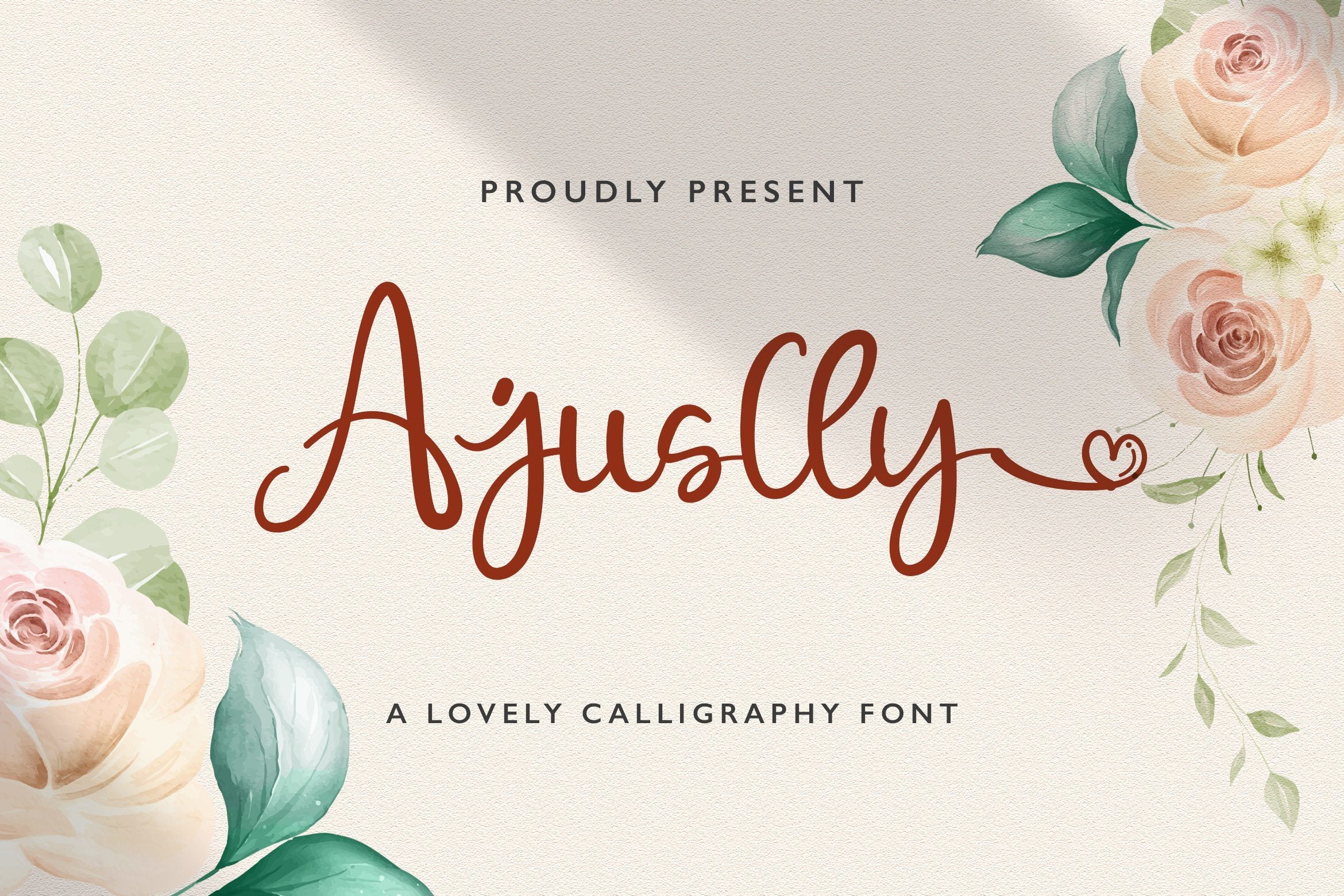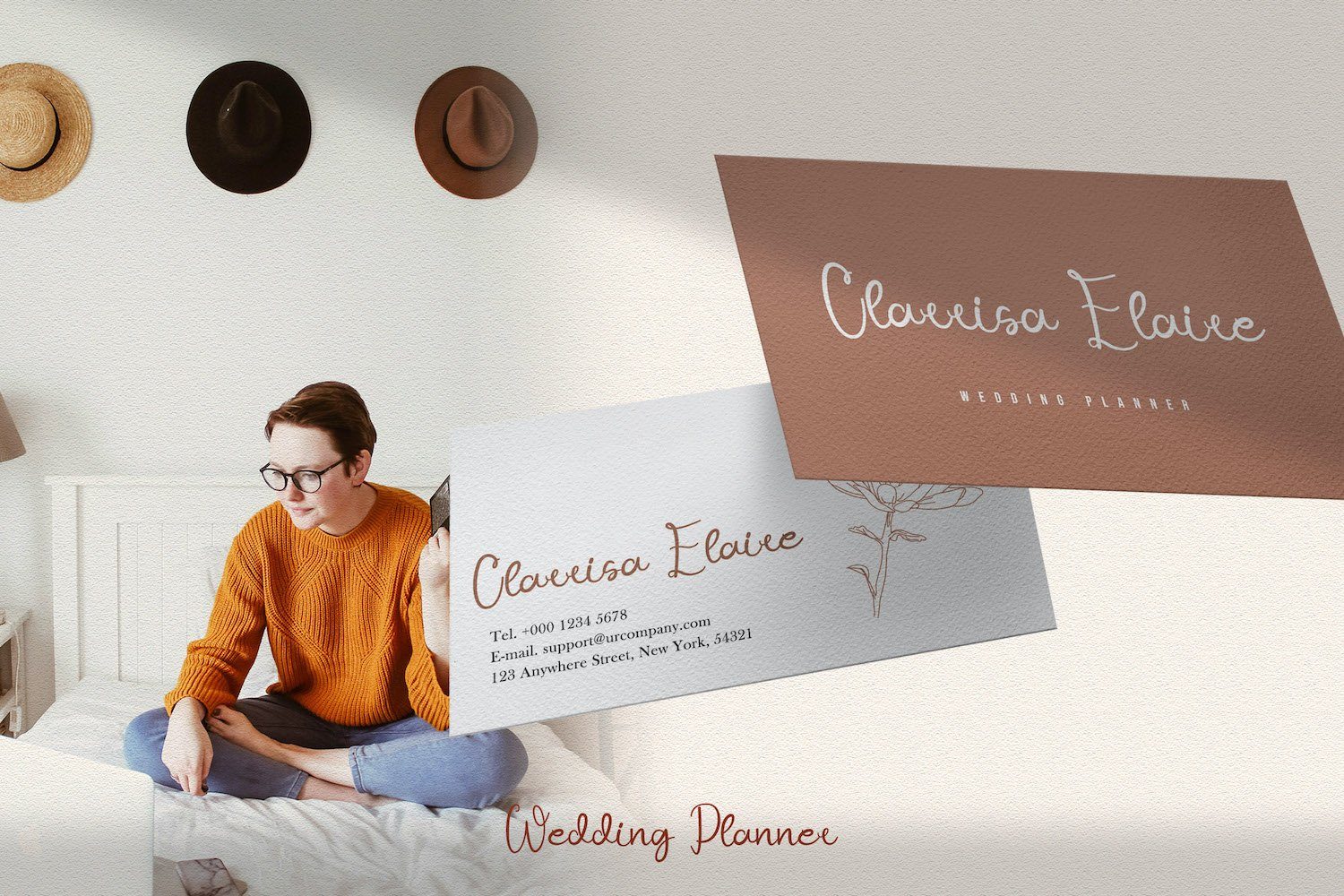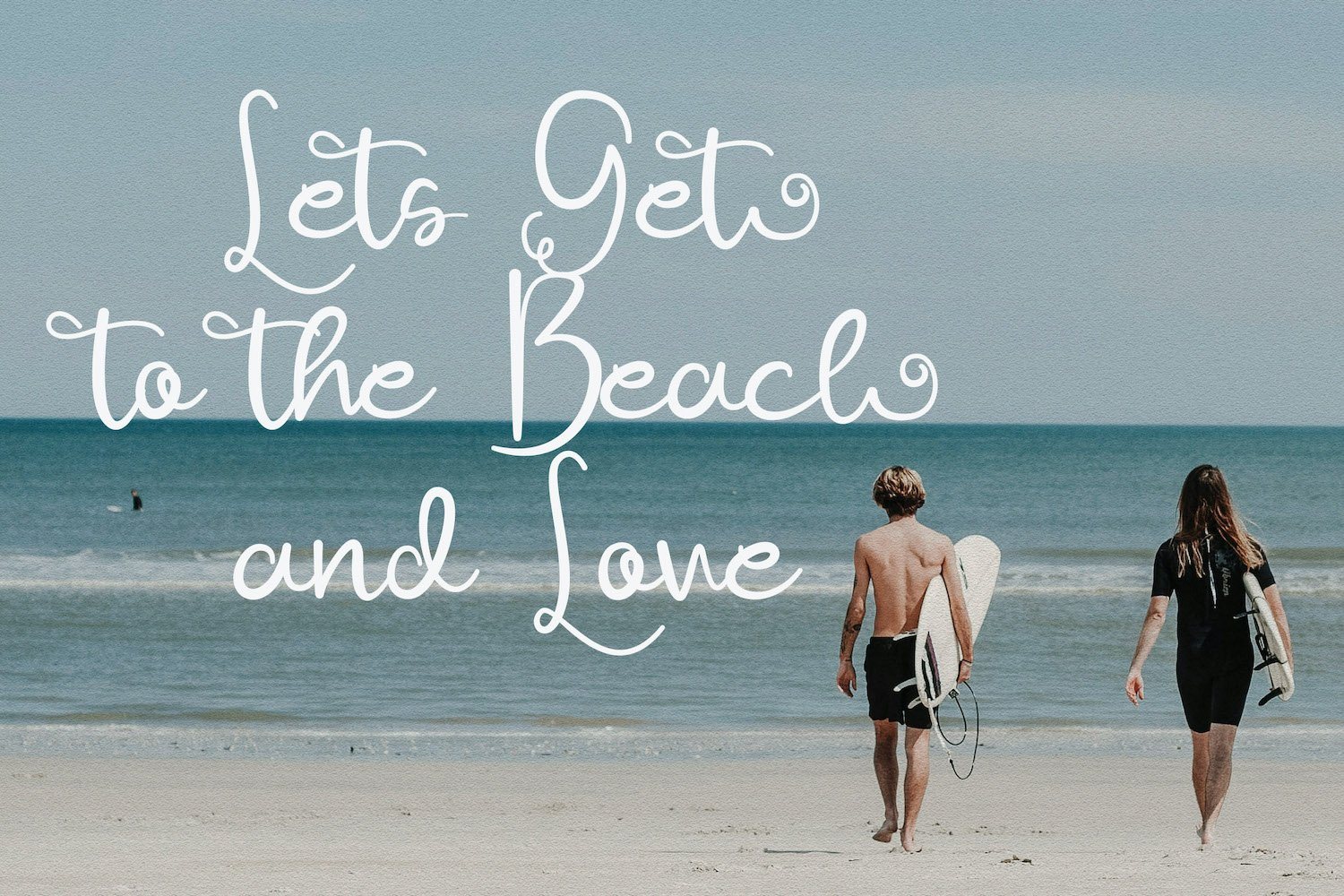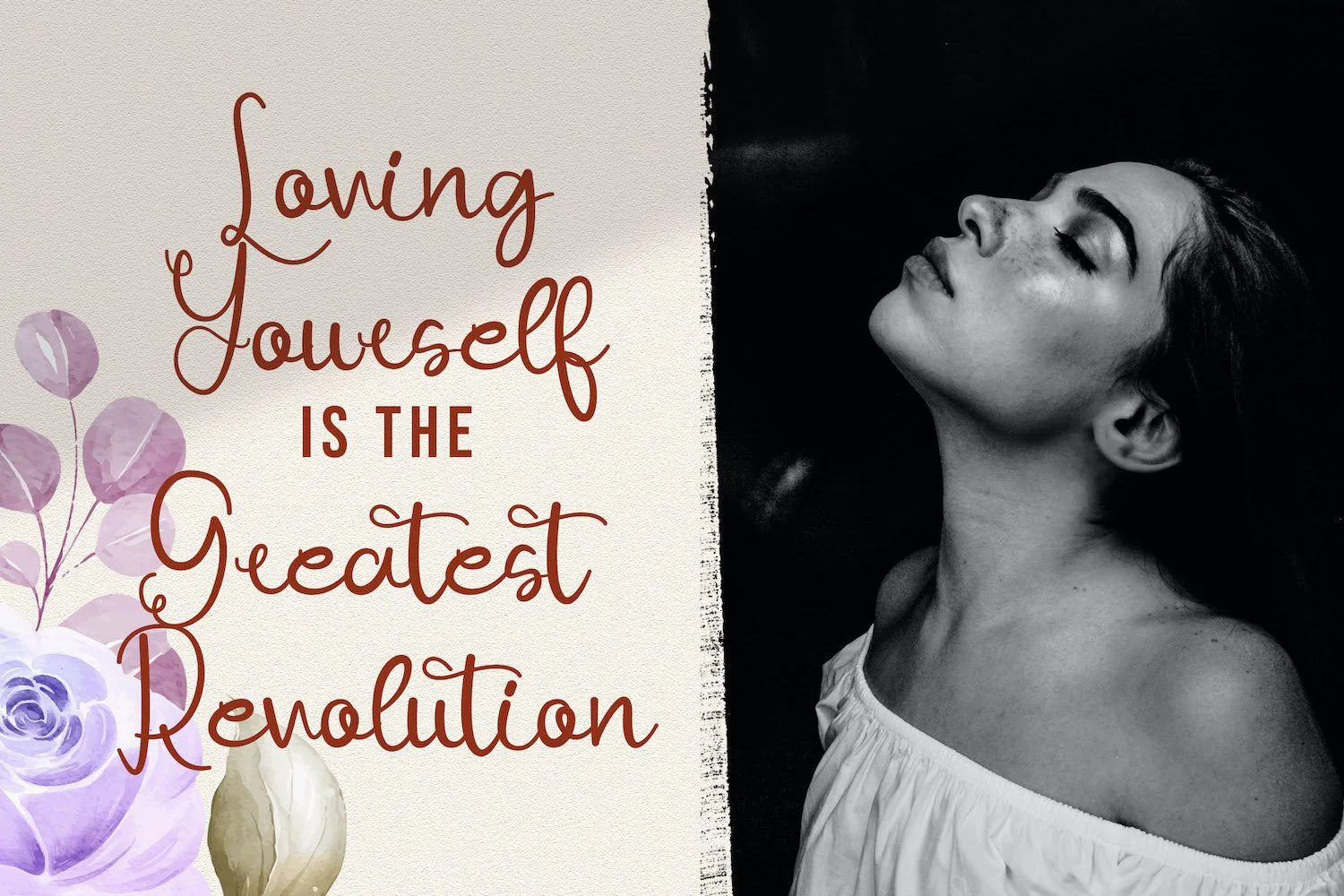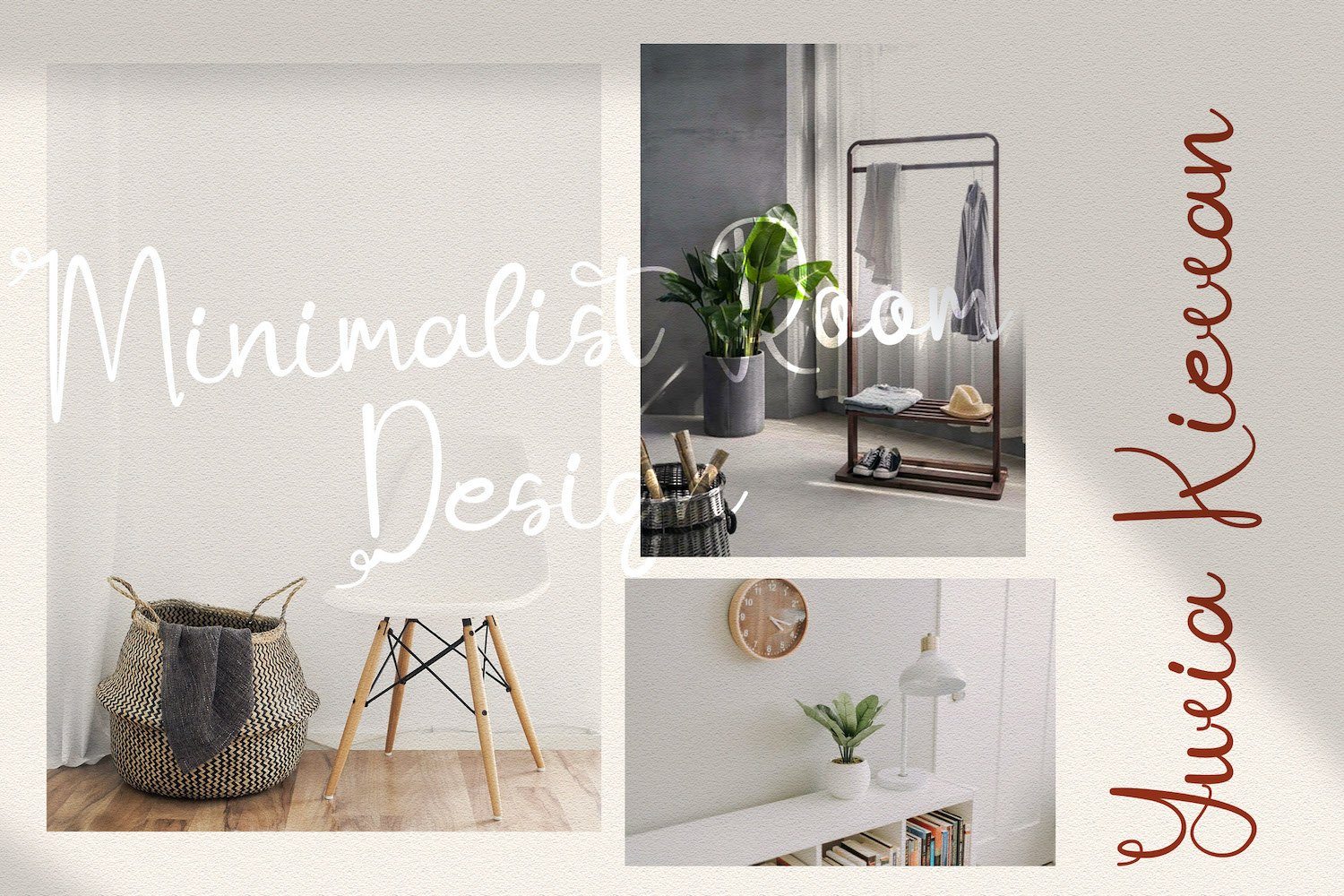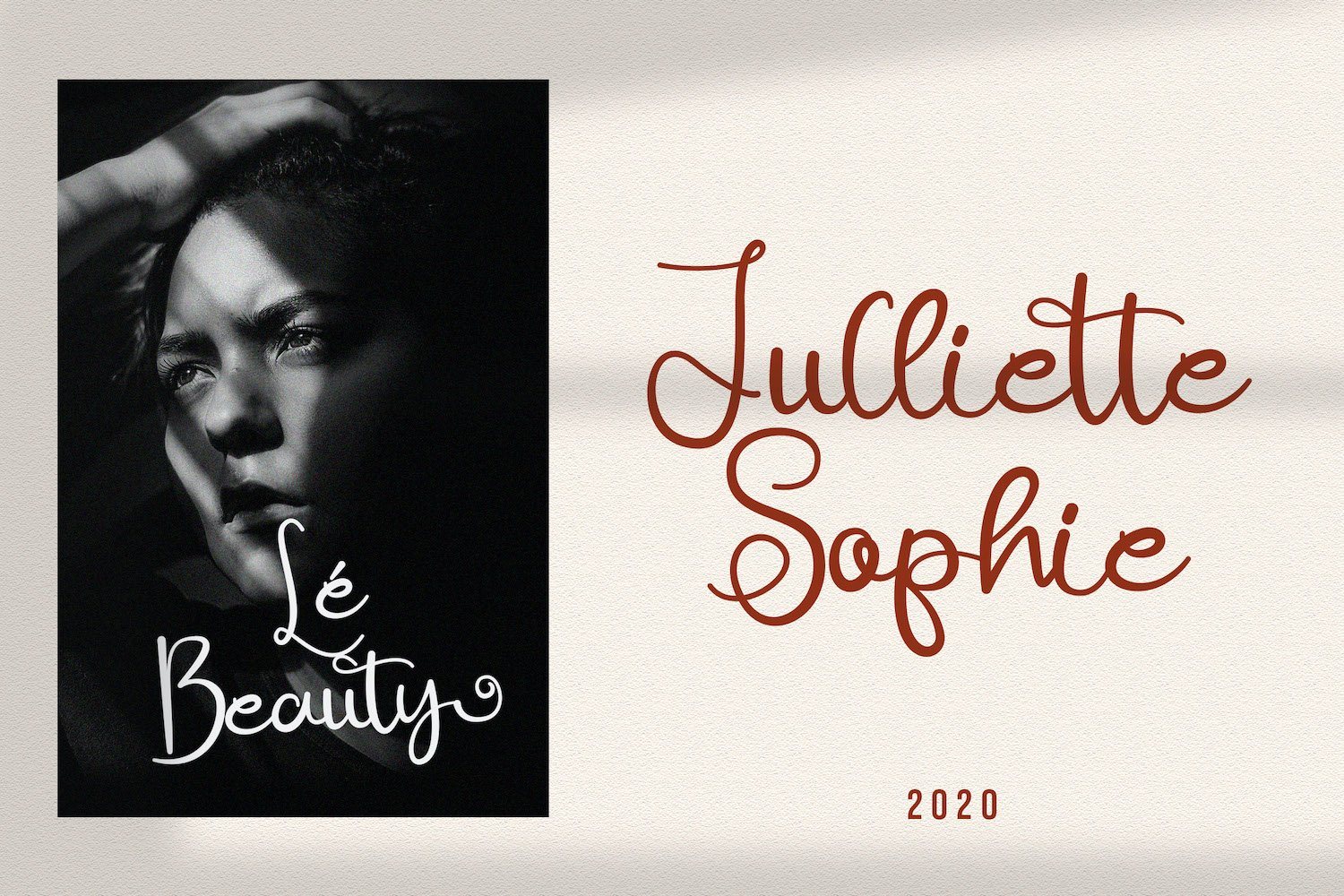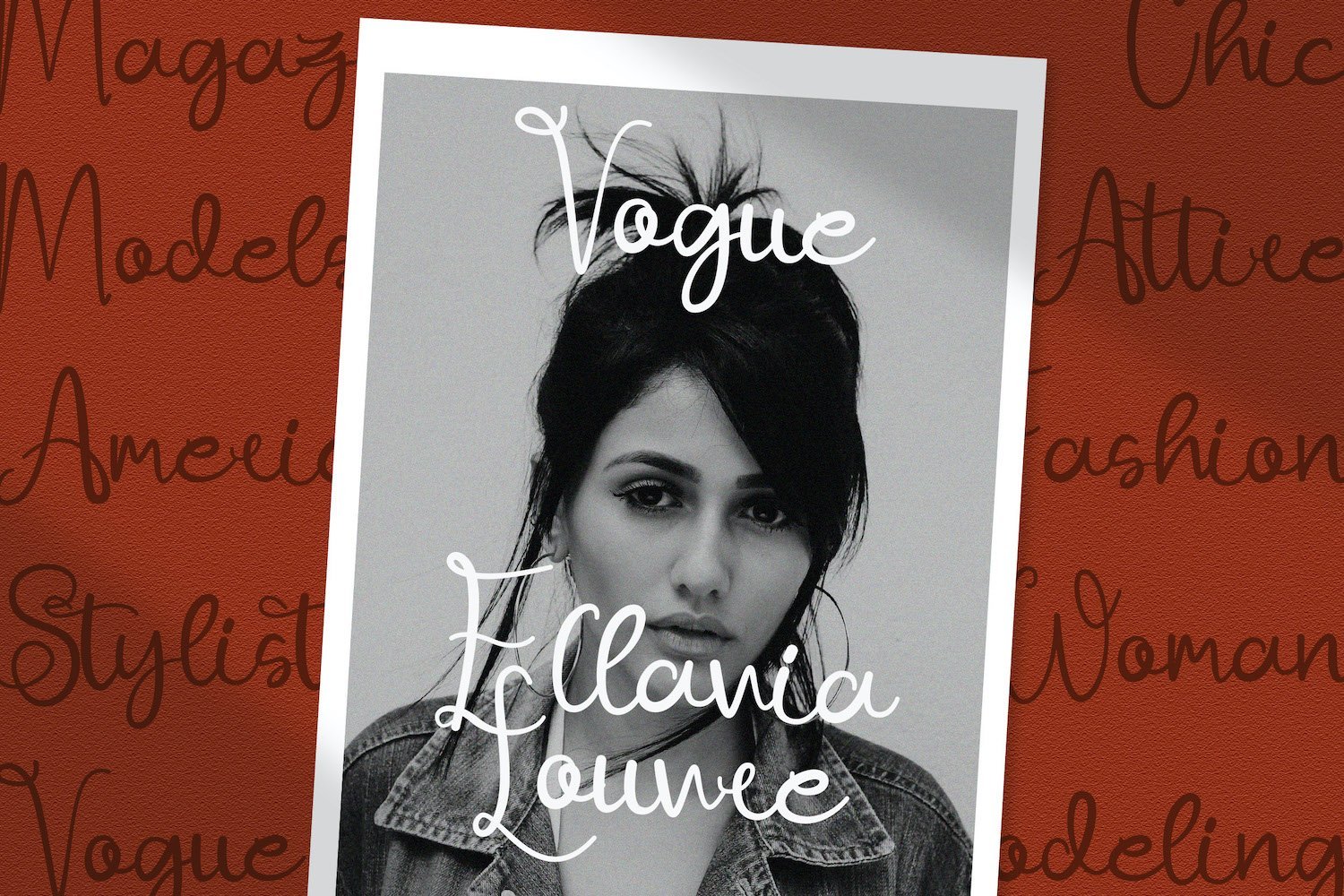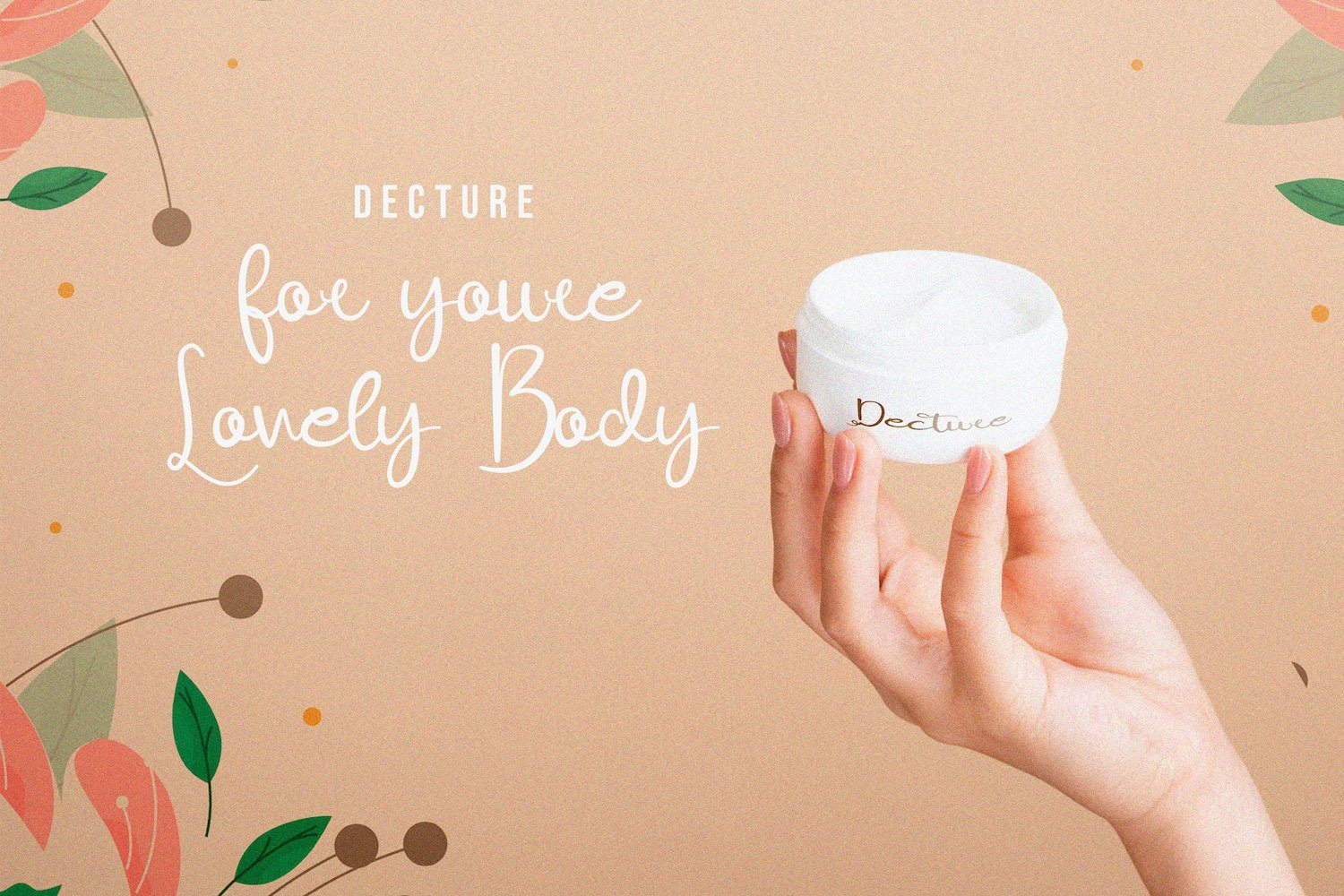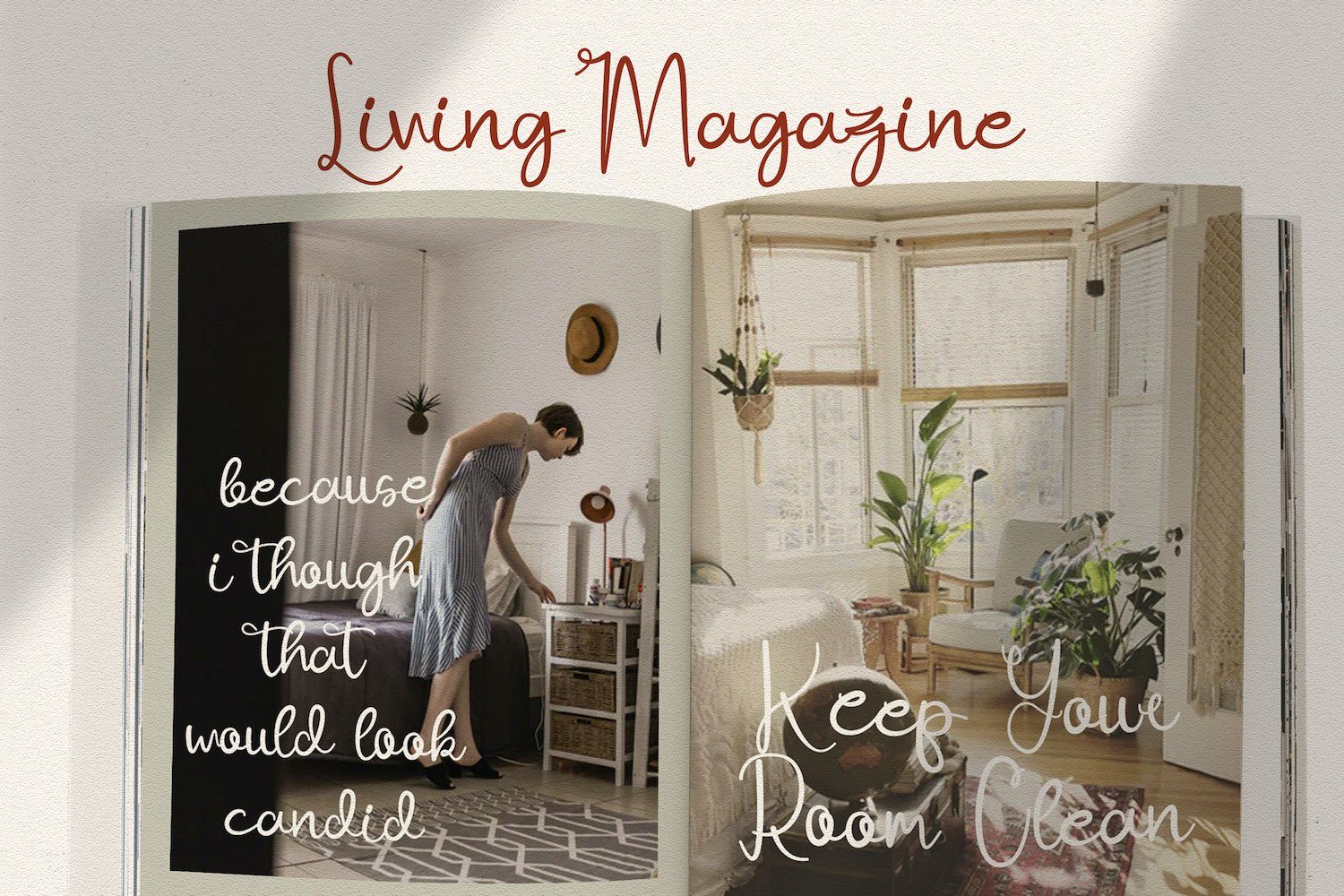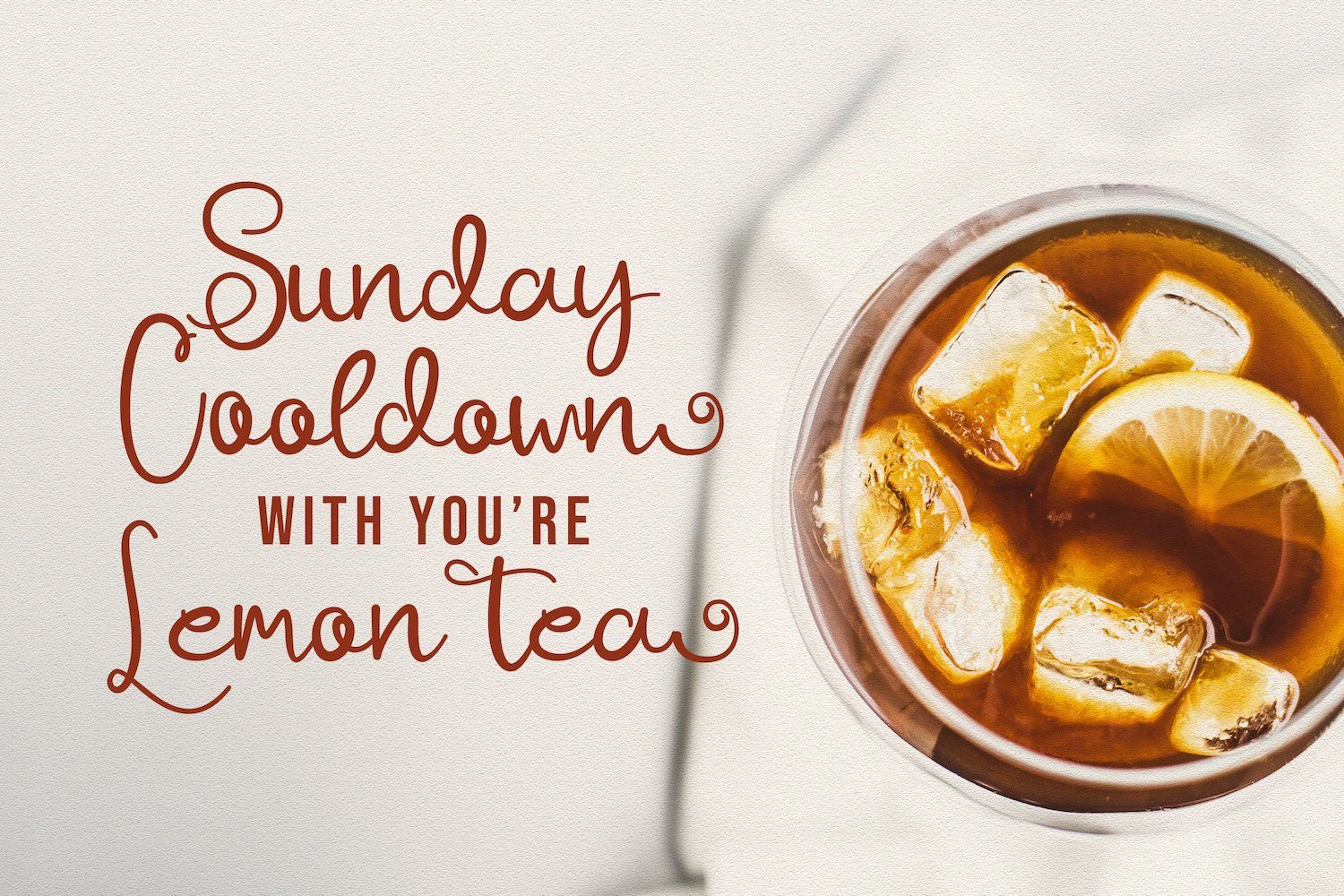
Ajuslly - Modern Calligraphy Font
Introducing Ajuslly - Modern Calligraphy Font
Ajuslly is an incredibly distinct, delicate and timeless handwritten font. It looks stunning on wedding invitations, thank you cards, quotes, greeting cards, logos, business cards and every other design which needs a handwritten touch. This font is PUA encoded which means you can access all of the glyphs and swashes with ease! It features a varying baseline, smooth lines, gorgeous glyphs and stunning alternates.